12 great typefaces created by graphic design students
When it comes to typefaces, every graphic designer struggles with choosing the right one for their projects. But if you can't find the typography you need, how do you complete your vision? For many, the solution is to create a unique set of fonts, something that no one has dreamed up before.
This is what we regularly challenge our students with at Shillington. We set them the task of crafting one or more fonts, taking into account weights, styles, condensations, widths, slants and everything they might need to create a bespoke typeface that fits a specific brief. For a little inspiration, we've sifted through a wealth of recent work to bring you 12 great typefaces created by our graphic design students. See what you think.
1. Miguel Lugtu
When faced with the challenge to design his own display typeface based on a specific era, Miguel Lugtu chose Art Deco and created Cinema – a vintage styled typeface with contrasting thin and thick lines. He was apparently inspired by the movie La La Land and themes of Old Hollywood, and was so successful he became a finalist in the AGDA Student Awards in 2017.
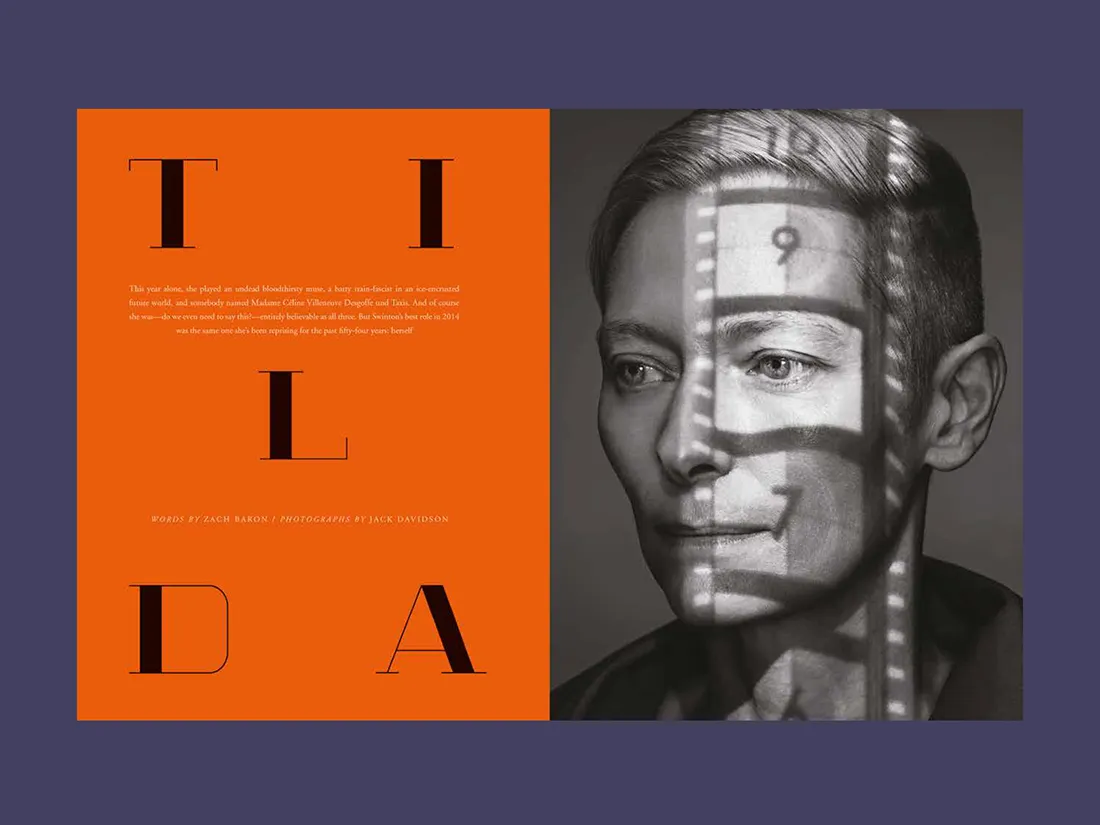
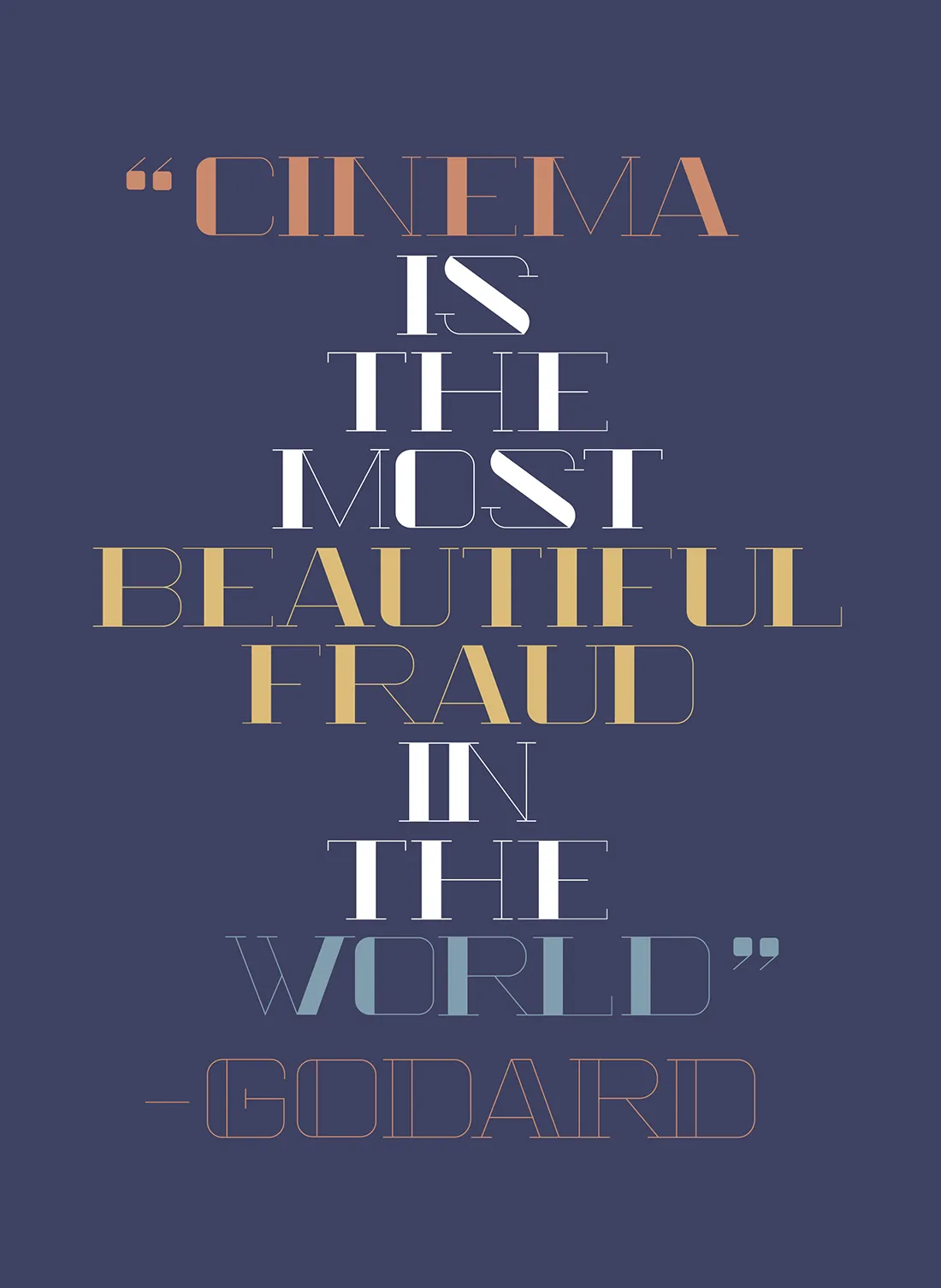
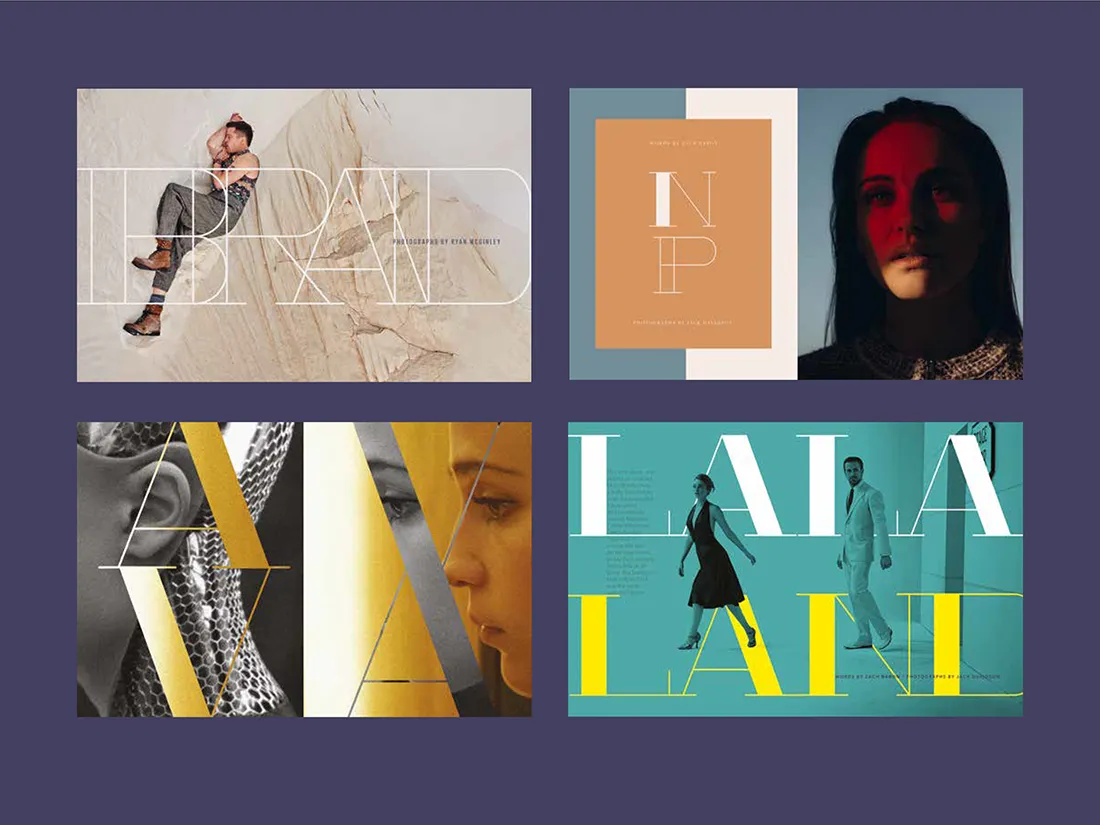
2. Tom Noon
For the BFI Film Festival, designer Tom Noon created a fictional brochure focusing on the work of Stanley Kubrick. For such a great theme, Tom had to design his own typeface, taking inspiration from the iconic film director's back-catalogue, ranging from gloriously unpredictable SciFi to all-out, chaotic horror.
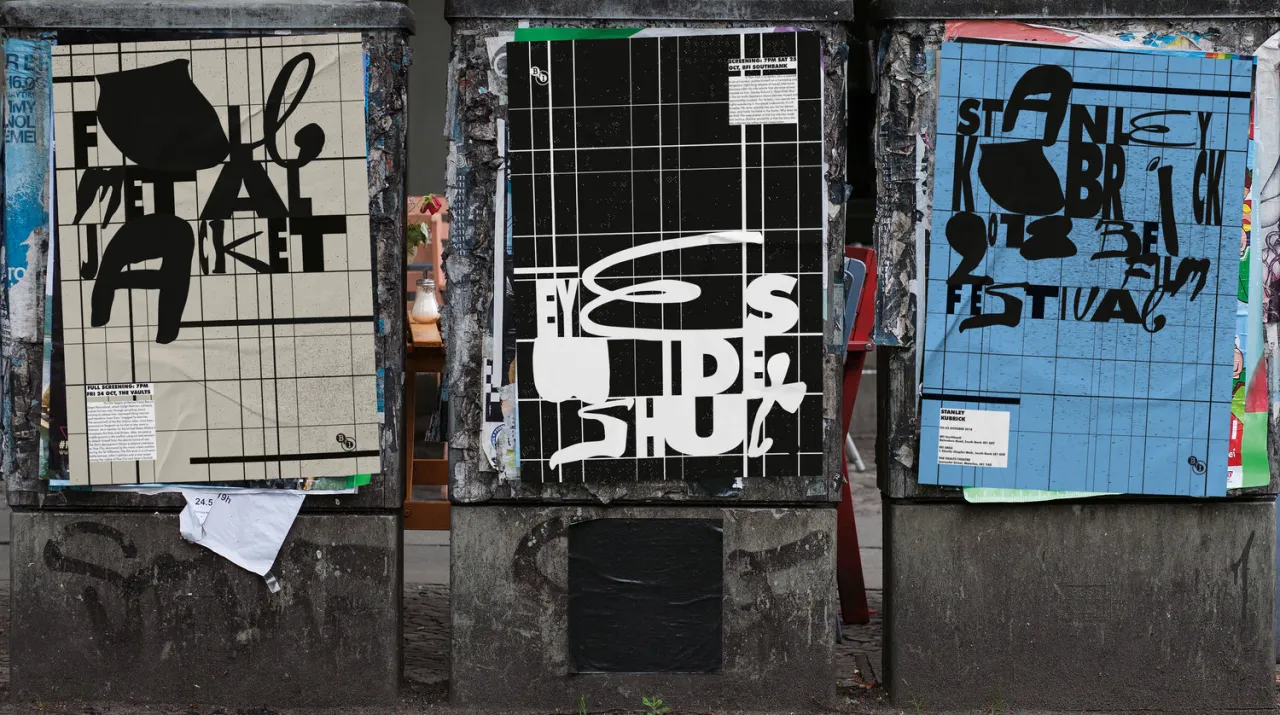
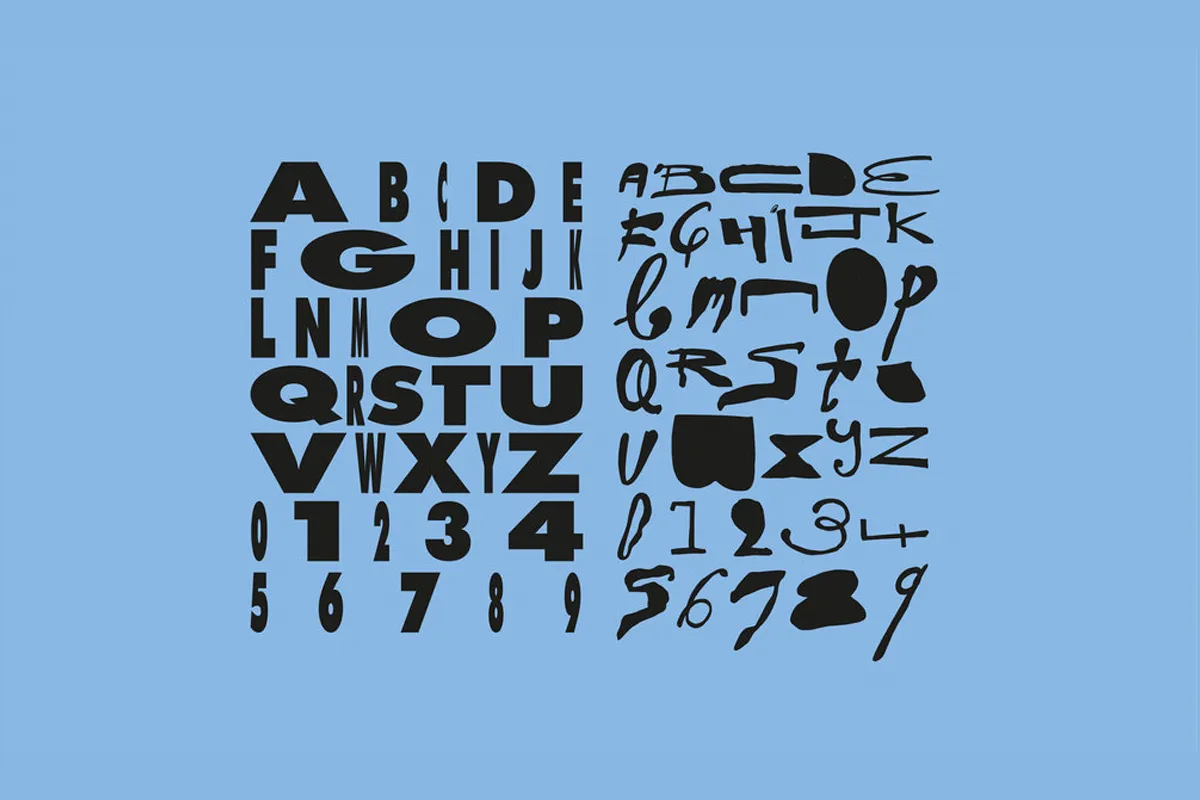
3. Marcus Parrott
Marcus Parrott created an identity for a small, independent garden centre in East London. Part of the brand exercise involved designing a bespoke typeface, no doubt inspired by prickly cacti. The sharp lines and extra details perfectly suited the subject.
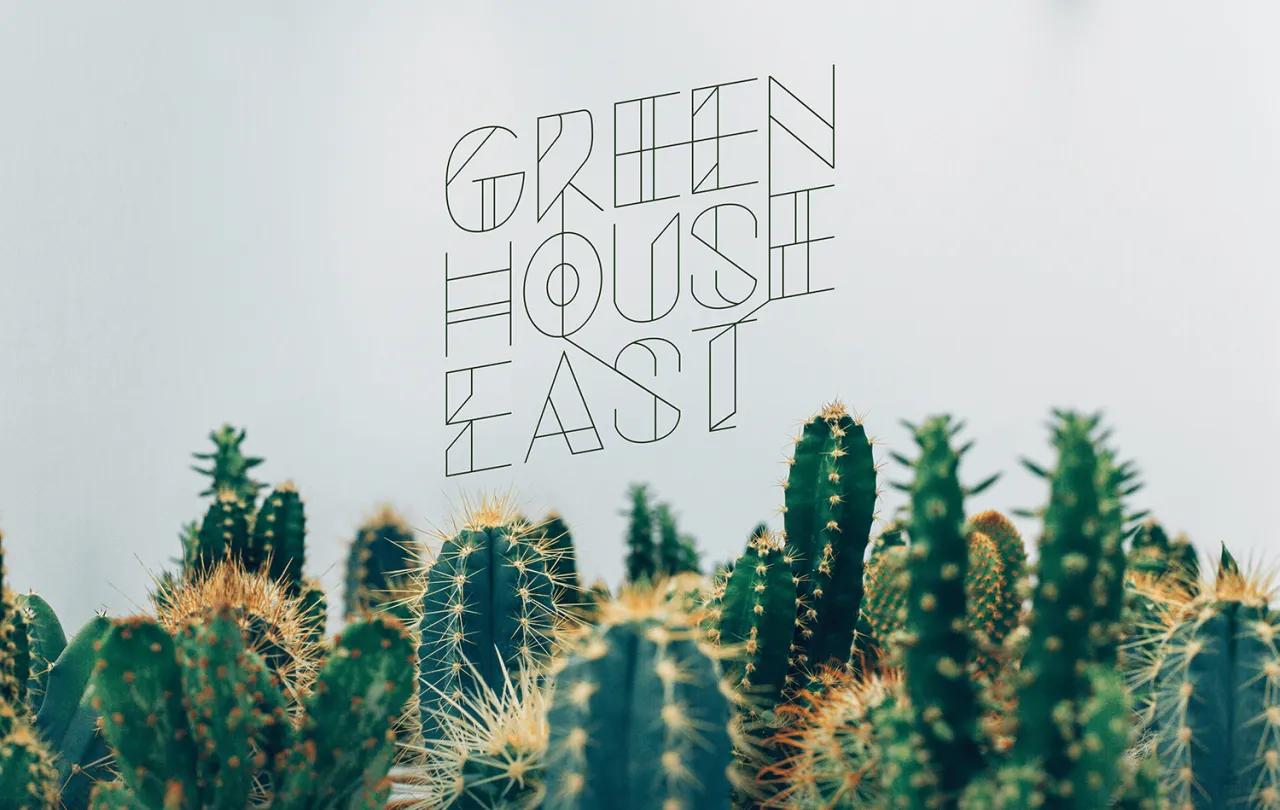
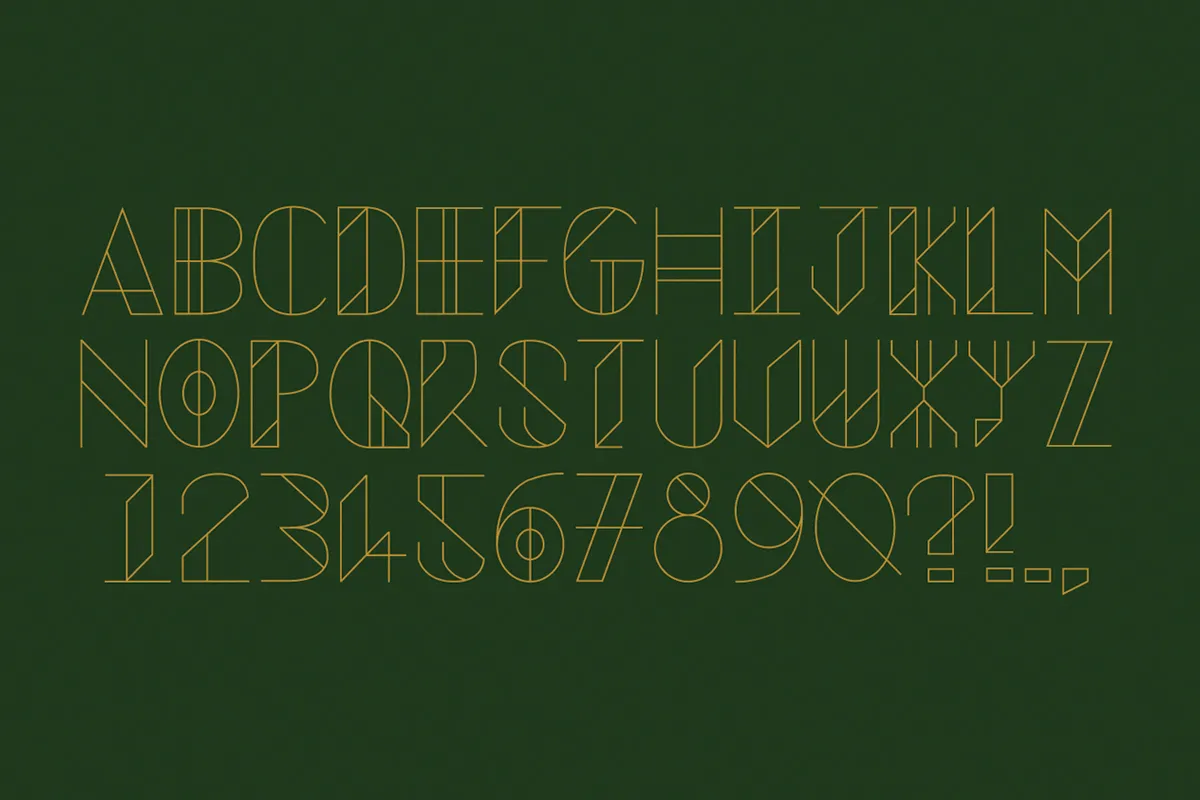
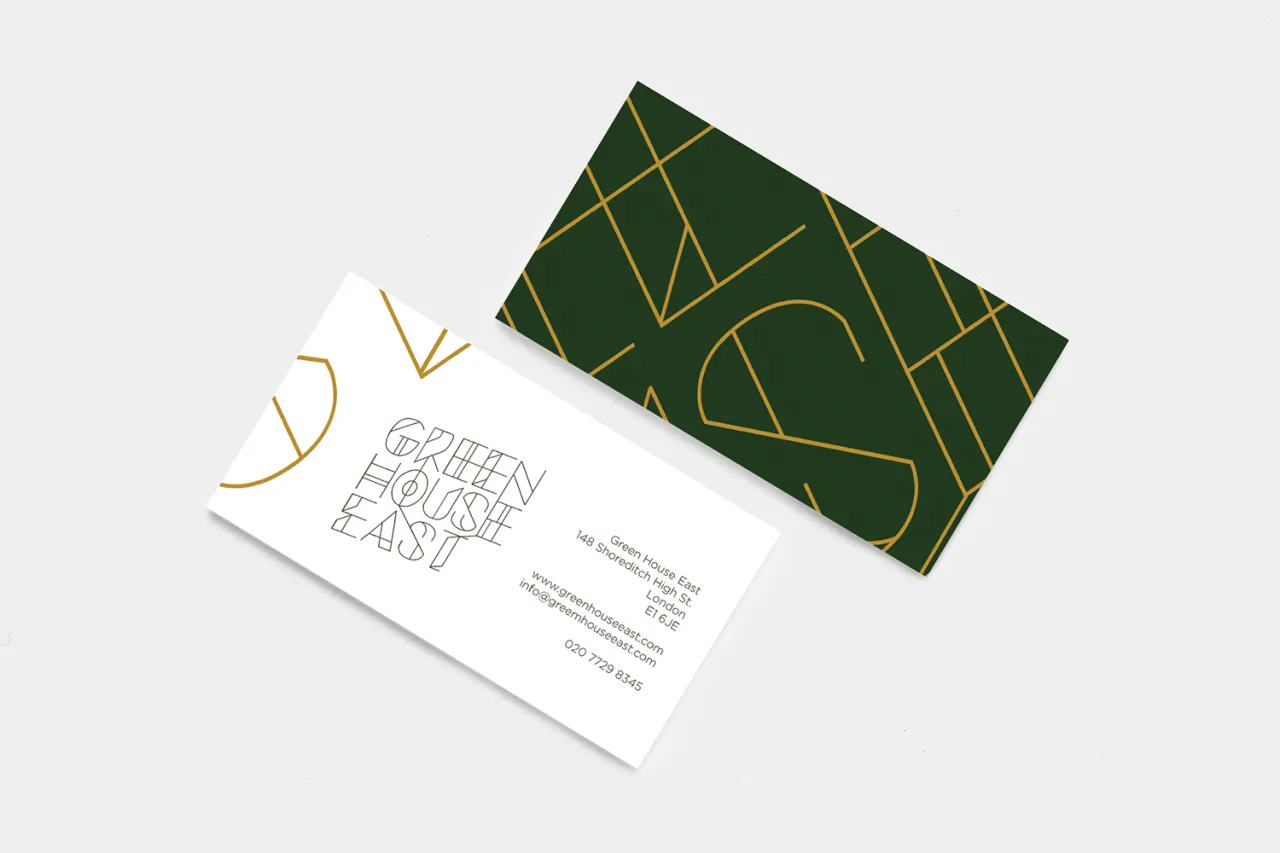
4. Andy Jacobs
The student brief for Andy Jacobs was to come up with a poster campaign to publicise a darts-based sporting event at the Olympic Park in Stratford, London. Andy came up with an identity and fresh typeface that mimicked the speed and point system of the game.
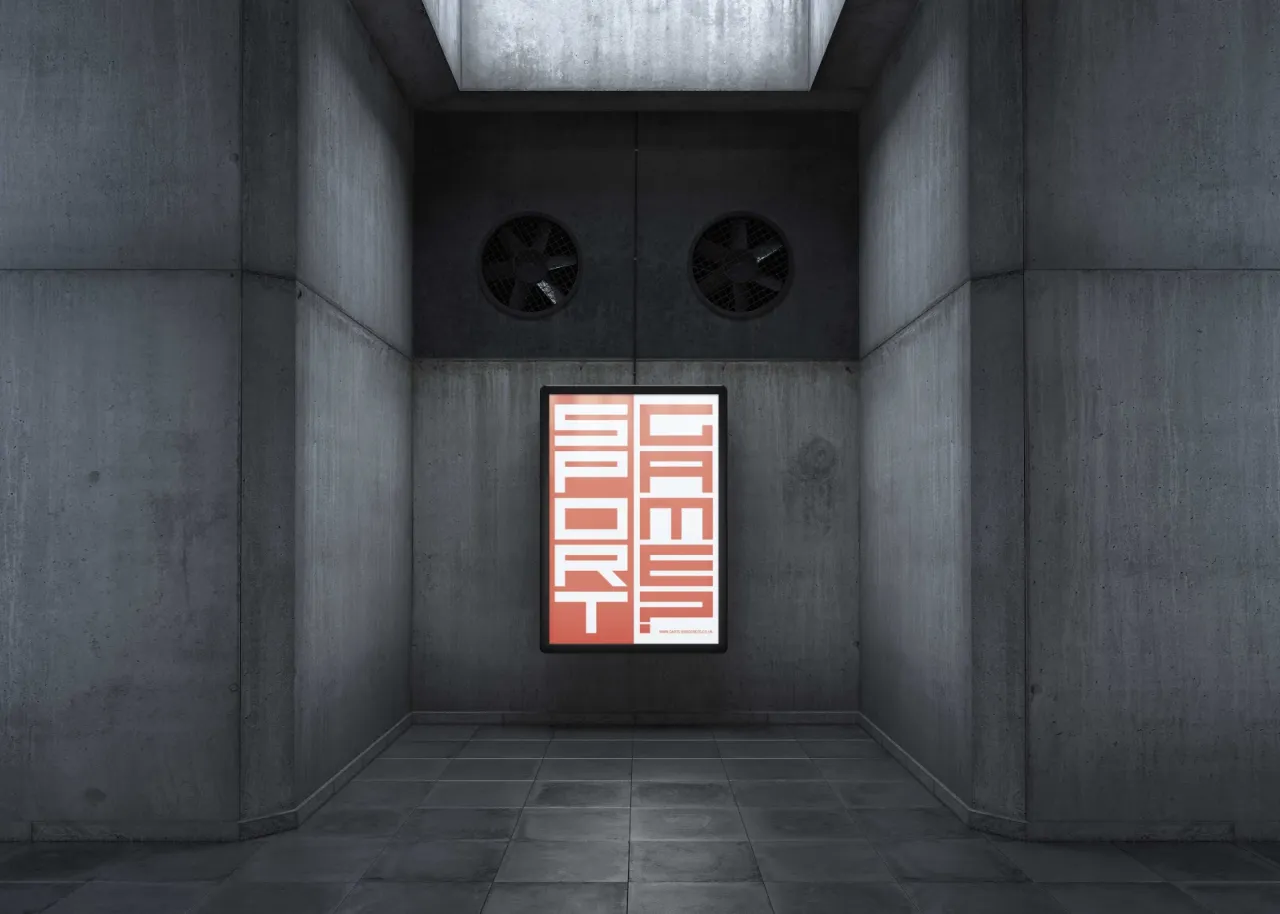
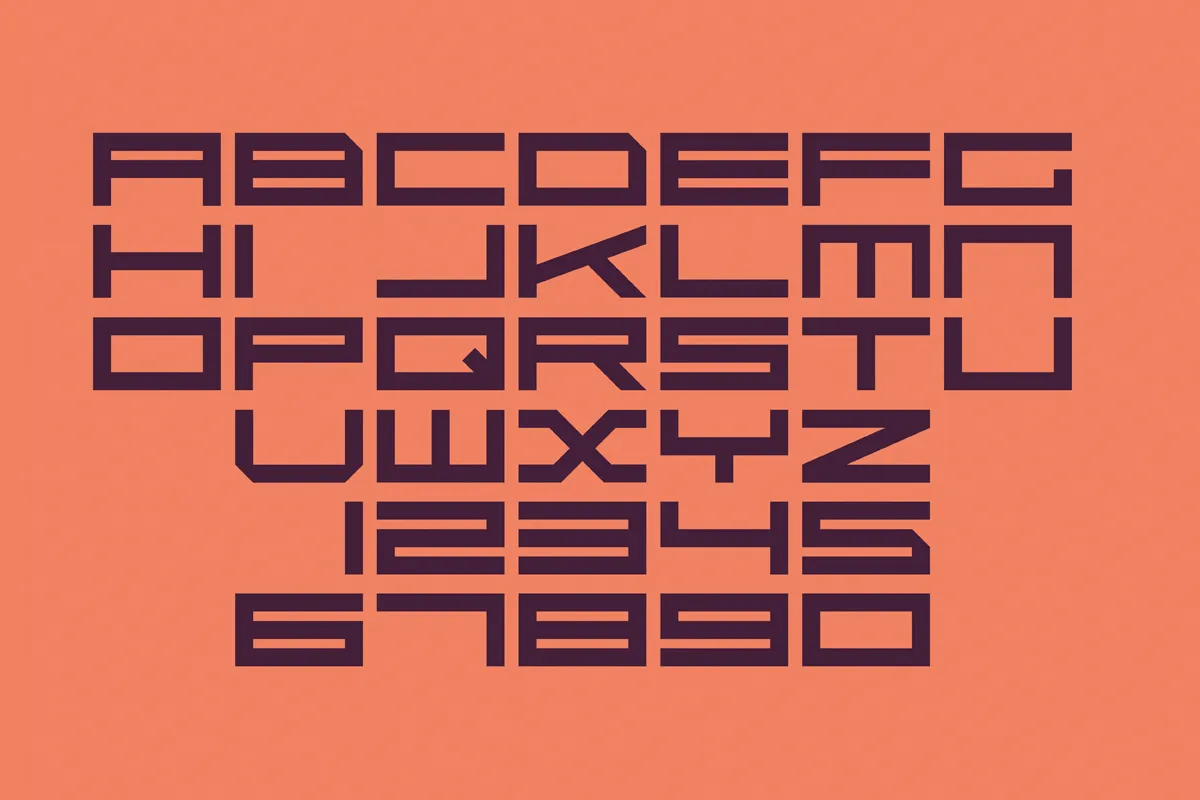
5. Tom Holding
"People don't want different. We are the Outciders," reads the rather quirky strapline for an oddball cider brewery based in Devon.
It's a fictional brand by Tom Holding who decided to come up with a visual identity for the drinks firm, along with a bespoke typography. "Outciders make a variety of flavourful ciders inspired by folklore and legend," explains Tom. This is probably why his unique typeface is wild and hand-drawn.
6. Biz Weegberg
Biz Weegberg is all about colourful words. Which is why we're happy to show you the clever typeface she crafted for her fictional identity system on Beirut. Reflecting the language, religion and cultural aspects of Lebanon's capital city, the typeface fits together in a modular system.
7. Daniel Kan
Jump aboard the Metro typeface by Daniel Kan. Designed to be optimistic, nostalgic and dynamic, it's an interesting arrangement of fonts, taking full inspiration from the underground lines and tracks that serve some of the world's busiest cities every day.
8. Georgina Keenan
There's a lot of talent behind Georgina Keenan's Handmade typeface. Created for a poster for her chosen movie, Kubo and the Two Strings, the alphabet was entirely made from original origami to mimic the animated film's use of folded paper. Beautiful work.
9. Inigo Ropner
This beautiful custom typeface by Inigo Ropner is based on a classic gothic script style, brought to life from his sketchpad. We love the traditional angles and slants, harking back to a time when lettering really was a work of art.
10. Mark Osmond
For Mark Osmond's latest work, he crafted a HUB typeface for a fictional app designed to encourage tenants to pool online food purchases. The type consists of hexagonal elements that refer to the shape's tessellation properties and elements coming together.
11. Ray Wong
We're getting into a spin about Fabricate, a brand identity designed by Ray Wong for a pretend laundrette and art cafe in East London. The contemporary vibe hopes to inspire a young and trendy audience, and features a beautifully modern typeface with satisfying black and white shapes and lines.
12. Martina Schenker
For Martina Schenker's recent student brief, she decided to craft an identity for Camden, taking big cues from the area's rich cultural heritage. As part of the branding exercise, she had to create a bespoke typeface that then rolled out to a poster series, app and student flags. Bold, confident and clear, it's a typeface that certainly gets attention.